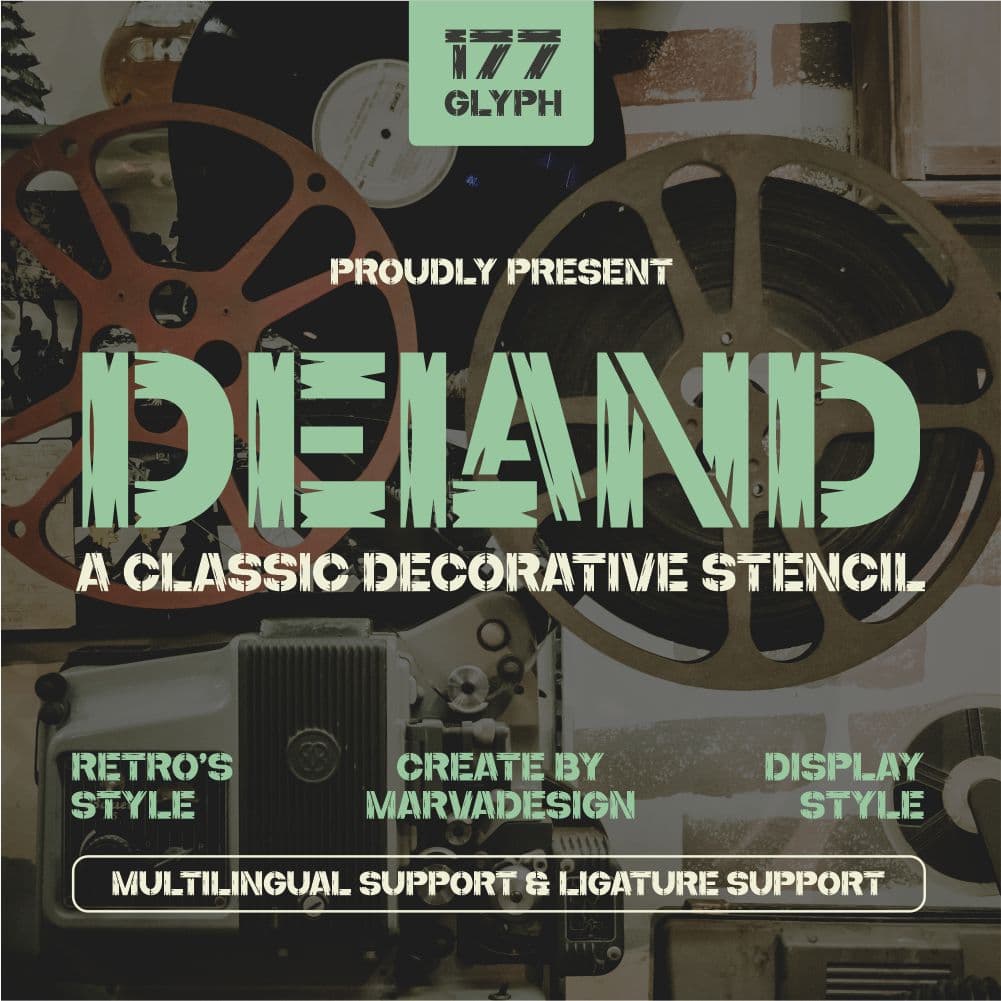
<p>Deland Is a bold, decorative stencil typeface with a distinct retro and industrial aesthetic. Characterized by sharp, fragmented cuts along the letterforms, this font evokes a rugged, worn-out, and distressed look, making it highly suitable for vintage, horror, or military-inspired designs. The uppercase letters maintain a strong geometric structure while integrating rough, irregular edges that add a sense of texture and depth.<br>This typeface is optimized for display use, making it ideal for posters, movie titles, branding, and promotional materials where a striking visual impact is required. The inclusion of multilingual support and ligature functionality enhances its versatility, allowing it to be used across various languages while maintaining its distinctive style. The combination of stencil elements and bold strokes provides a sense of strength and authority, making this font an excellent choice for themes related to action, thriller, and retro aesthetics.</p>